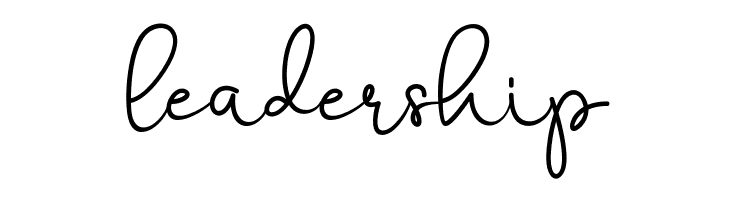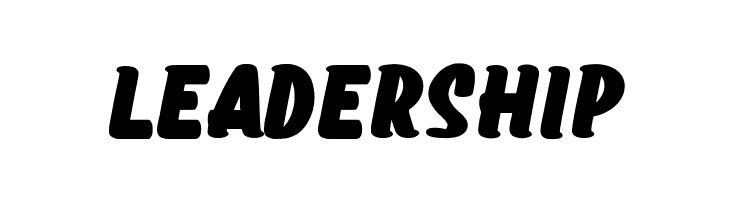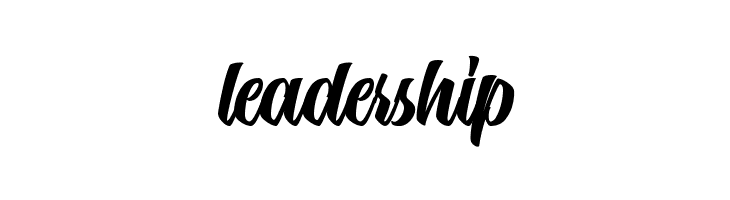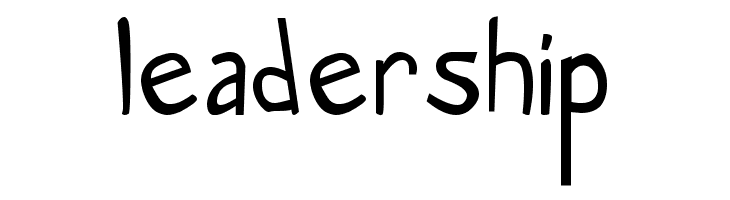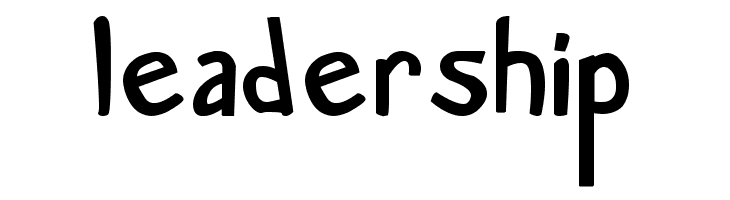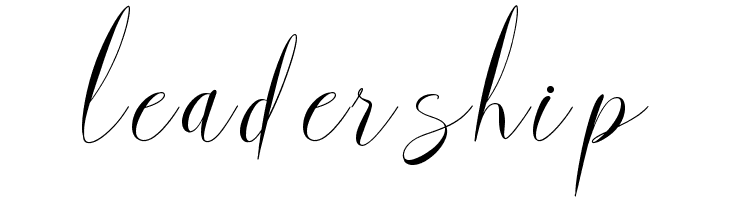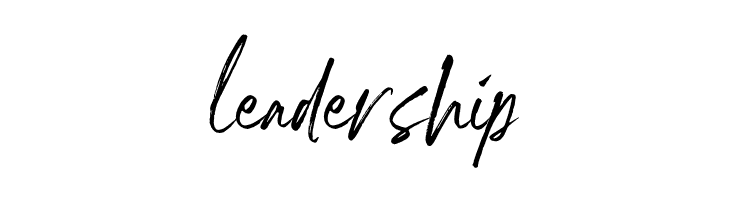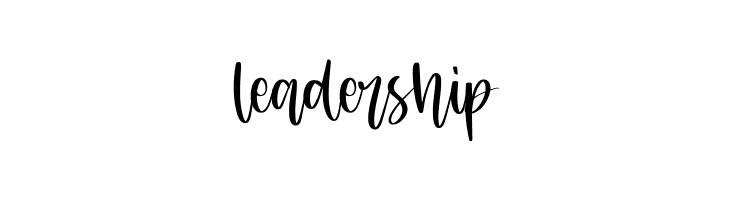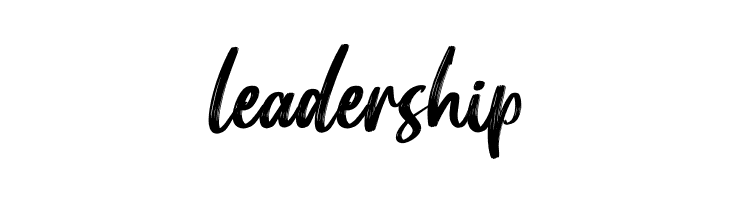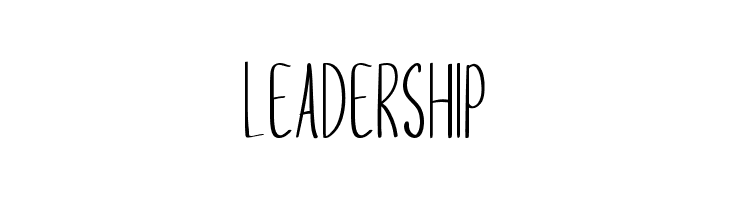
( Fonts by Md Shohail Bhuian - Personal-use only. For commercial use please contact owner. ) A playful, hand-drawn font with tall, narrow letters and a whimsical style. Download 35 Downloads@WebFont
( imagex - www.imagex-fonts.com ) An ornate and decorative font with intricate swirls and flourishes. Download 68 Downloads@WebFont
( Fonts by Wino S Kadir - weknow - www.revolge.com/shop/weknow/ - Personal-use only. For commercial use please contact owner. ) A geometric, angular font with a modern and technical appearance. Download 67 Downloads@WebFont
( Fonts by FallenGraphic Studio - Vava Aryanto - Personal-use only. For commercial use please contact owner. ) A bold, expressive script font with flowing, cursive letterforms. Download 35 Downloads@WebFont
( Fonts by Richie Mx - Ricardo Saul Castellanos Pabello - Personal-use only. For commercial use please contact owner. ) A bold blackletter font with sharp, angular lines and Gothic influences. Download 107 Downloads@WebFont
( Fonts by Letterative Studio - Personal-use only. For commercial use please contact owner. ) A flowing, elegant script font with a handwritten style. Download 36 Downloads@WebFont
( Fonts by Prioritype Co - Prio Nurokhim Aji - Personal-use only. For commercial use please contact owner. ) A lively and flowing script font with elegant curves and smooth connections. Download 51 Downloads@WebFont
( Fonts by Letterena Studios ) Elegant cursive script with a handwritten style. Download 177 Downloads@WebFont
( Fonts by Sketype Studio - Anjar Prasetio - Personal-use only. For commercial use please contact owner. ) A bold, playful handwritten font with smooth, flowing curves. Download 37 Downloads@WebFont
( Fonts by Press Gang Studios - Andeh Pinkard - www.pressgang-studios.com ) A playful, comic-style font with a handwritten feel. Download 636 Downloads@WebFont
( Fonts by Press Gang Studios - Andeh Pinkard - www.pressgang-studios.com ) A bold, playful font with a comic book style and hand-drawn appearance. Download 776 Downloads@WebFont
( Fonts by Pnaj Lab - Personal-use only. For commercial use please contact owner. ) A playful, bold script font with a handwritten, cursive style. Download 27 Downloads@WebFont
( Fonts by Letterena Studios - letterena.com - Personal-use only. For commercial use please contact owner. ) A dynamic, expressive script font with a modern, handwritten style. Download 30 Downloads@WebFont
( Fonts by Xerographer Fonts ) A casual handwritten font with a lively and organic appearance. Download 107 Downloads@WebFont
( Fonts by imagex - Personal-use only. For commercial use please contact owner. ) A bold, angular font with a modern and dynamic style. Download 66 Downloads@WebFont
( Fonts by nariswari_creative - Taufik Dwi Purnomo - Personal-use only. For commercial use please contact owner. ) An elegant script font with flowing curves and sophisticated style. Download 40 Downloads@WebFont
( Fonts by Nico Muslib - Personal-use only. For commercial use please contact owner. ) An elegant, flowing script font with a sophisticated, handwritten style. Download 39 Downloads@WebFont
( Fonts by www.fontpanda.com. Personal-use only. For commercial use please contact owner. ) A playful, handwritten font with tall, narrow letters and a casual, organic style. Download 102 Downloads@WebFont
( Stork - Vextorart Stork - www.vextorart.blogspot.com ) A bold, handwritten-style font with a casual, marker-like appearance. Download 108 Downloads@WebFont
( Fonts by a Max Infeld - XEROGRAPHER FONTS - xerographer.blogspot.com . Personal-use only. For commercial use please contact owner. ) A bold, decorative font with a 3D effect and thick outlines, perfect for creative projects. Download 89 Downloads@WebFont
( Fonts by Allouse Studio - Personal-use only. For commercial use please contact owner. ) A bold, rounded, and playful font with consistent stroke width. Download 156 Downloads@WebFont
( Fonts by Letteralle Studios - Annas Yahya - Personal-use only. For commercial use please contact owner. ) A dynamic and expressive handwritten font with fluid, energetic strokes. Download 110 Downloads@WebFont
( Fonts by Alde Saputro - aldedesign - https://www.creativefabrica.com/product/the-crafty-holiday-font-bundle/ref/125925/ - Personal-use only. For commercial use please contact owner. ) A playful and elegant handwritten script font with flowing, connected letters. Download 201 Downloads@WebFont
( Fonts by Hadjar Creative - Personal-use only. For commercial use please contact owner. ) A graceful script font with flowing, interconnected letters and a sophisticated style. Download 39 Downloads@WebFont
( Stork - Vextorart Stork - www.vextorart.blogspot.com ) A playful, extraterrestrial-themed font with bold, hand-drawn characters. Download 43 Downloads@WebFont
( Fonts by Wino S Kadir - weknow - www.revolge.com/shop/weknow/ - Personal-use only. For commercial use please contact owner. ) A bold, dynamic font with thick strokes and a slightly condensed form. Download 135 Downloads@WebFont